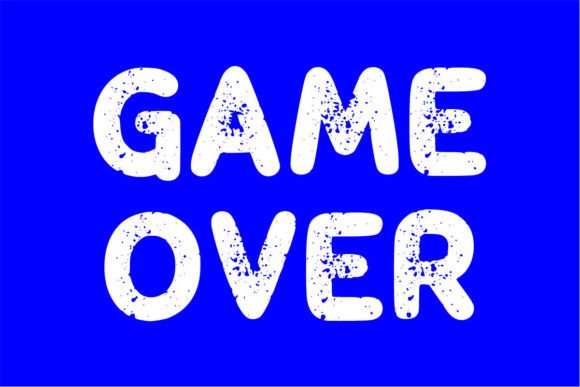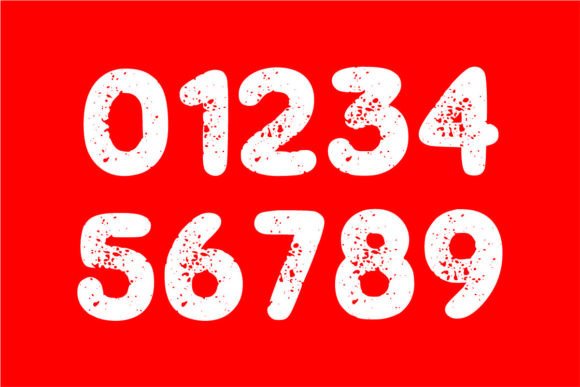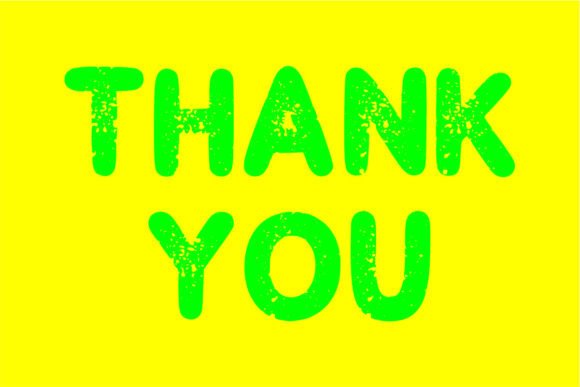
The Ultimate Guide to Aerock Font: Elevate Your Designs with a Fun and Upbeat Display Font
I’ll never forget the time I was working on a project for a client’s birthday party invitation. I had the design concept nailed down, but I just couldn’t find the right font to bring it all together. The design needed something fun, playful, and energetic – and that’s when I stumbled upon Aerock Font. It was love at first sight! The unique letterforms and bouncy vibe instantly elevated my design, and my client ended up loving it. If you’re a designer, crafter, or creative hobbyist looking for a font that can add a dash of personality to your projects, you’re in the right place.
A Honest Review of Aerock Font
What I Love About Aerock Font
- ✨ Fun and playful vibe: Aerock Font is perfect for designs that need a energetic and youthful feel.
- ✅ Highly versatile: You can use it for a wide range of projects, from posting designs and logos to branding, advertisements, and more.
- 💥 Attention-grabbing: The unique letterforms and bold style make it perfect for headlines, titles, and emphasis text.
While Aerock Font is an amazing display font, it’s not without its limitations. Here are a few things to keep in mind:
- ⚠️ Legibility at small sizes: Like many display fonts, Aerock can get a bit tricky to read at smaller sizes. Make sure to use it at a large enough size to maintain legibility.
- 🤔 Limited use in body text: While Aerock is perfect for headlines and titles, it’s not the best choice for body text. Stick to a clear, readable font for longer blocks of text.
The Backstory Behind Aerock Font
Aerock Font was designed with one goal in mind: to create a fun, upbeat display font that would add a dash of personality to any design. The designer, inspired by the world of rock music and the energy of live performances, set out to create a font that would capture that same excitement and enthusiasm. The result is a font that’s perfect for designs that need a bold, attention-grabbing look.
Q: What type of projects is Aerock Font best suited for?
A: Aerock Font is perfect for a wide range of projects, including posting designs, logos, branding, advertisements, invitations, greeting cards, planners, photo albums, decorations, and more.
Q: Is Aerock Font available in different weights or styles?
A: Yes, Aerock Font comes in a range of weights and styles, allowing you to experiment with different looks and feels.